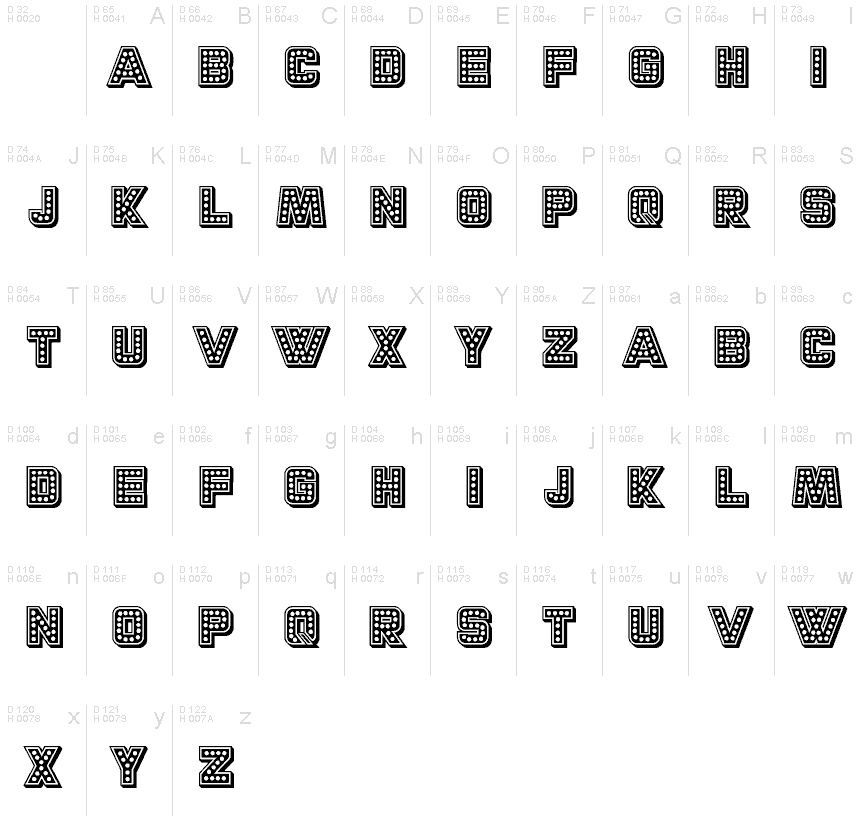
Tonight Regular
Tonight font by Vladimir Nikolic is a bold, display typeface that commands attention with its ornate and theatrical design. This decorative, free font combines retro-inspired elements with an illuminated style, contributing to a dramatic presence. Large letters feature decorative details and sharp edges for a beautifully balanced yet interesting design.
The Tonight font is perfect for book covers, movie posters, apparel designs, magazine covers, album cover designs, product packaging and labels. It will also make catch headlines and titles for print or online reading materials such as brochures and newspapers. It carries the loudness needed for advertising campaigns in streets (billboards), in shops (POS ads) or on social media platforms through posts!